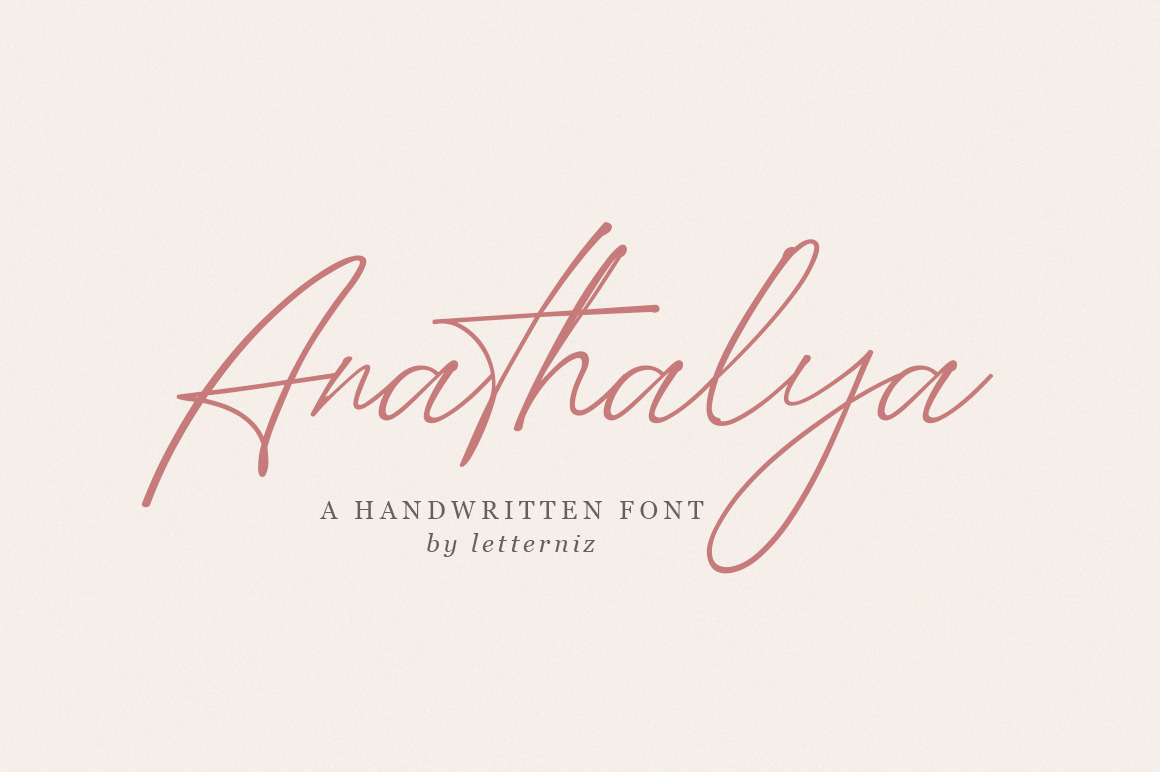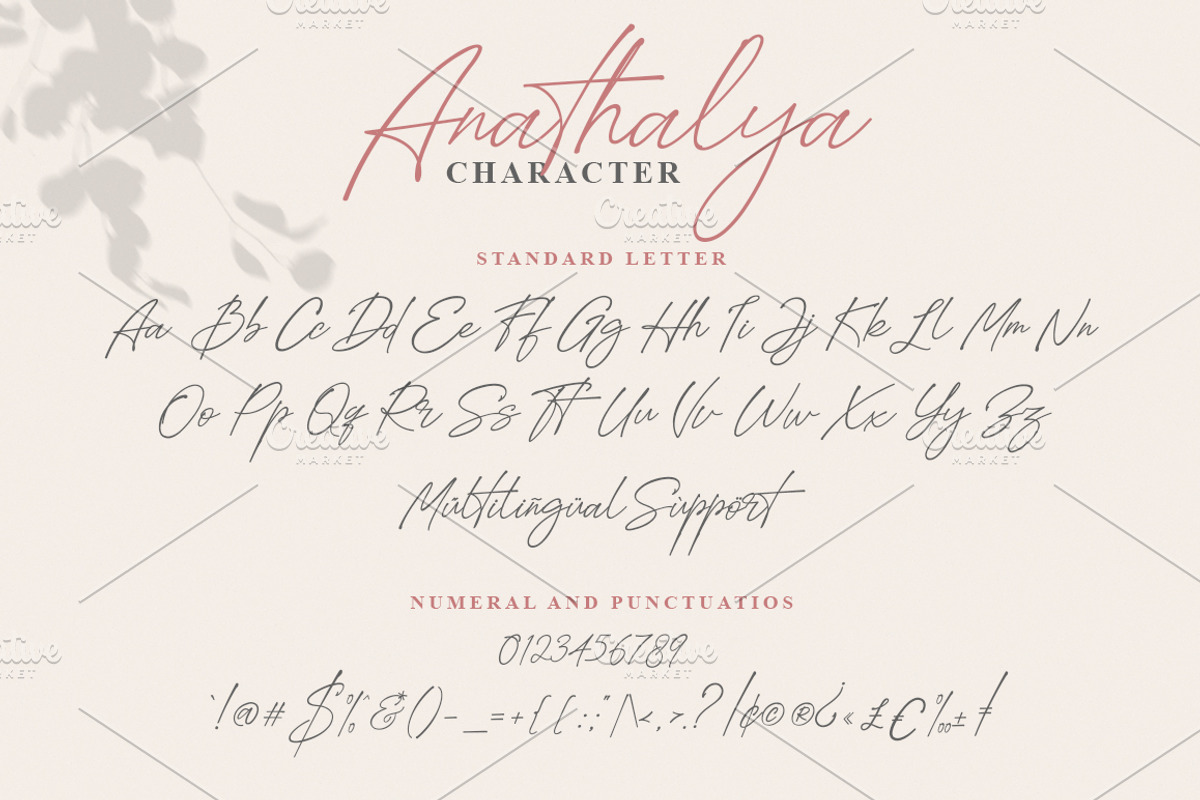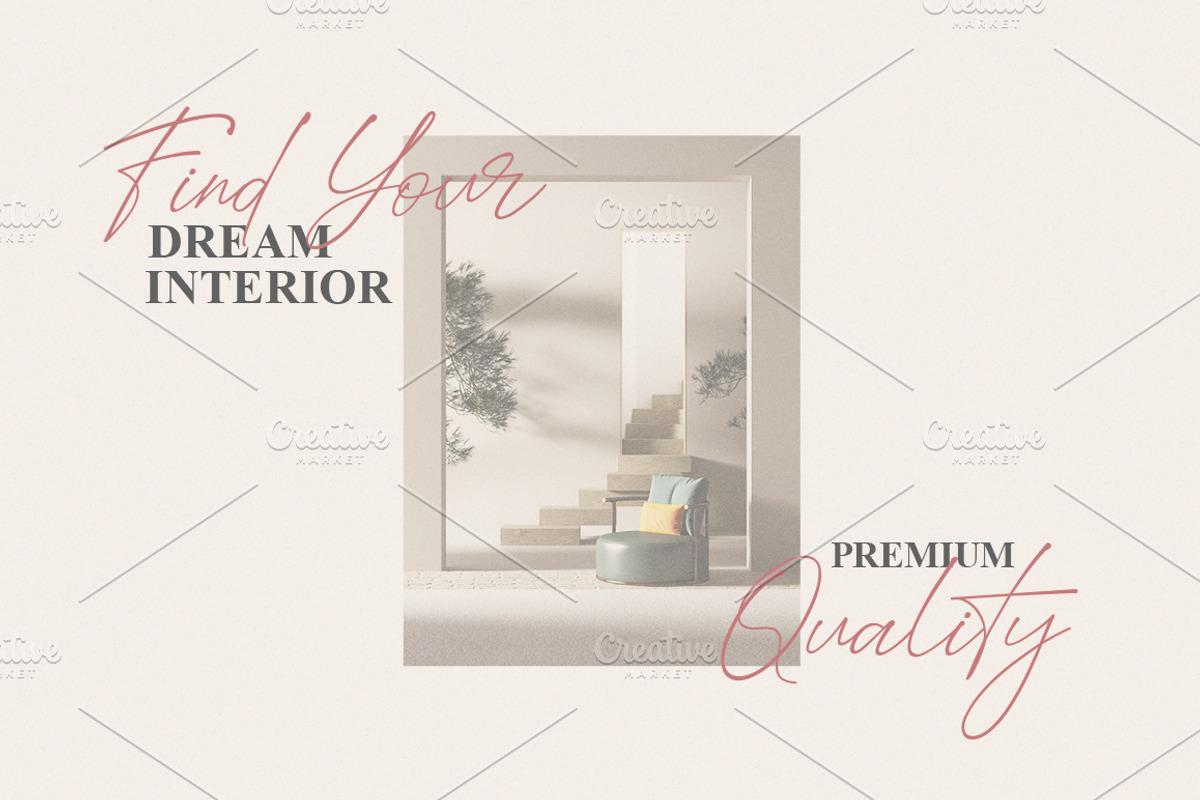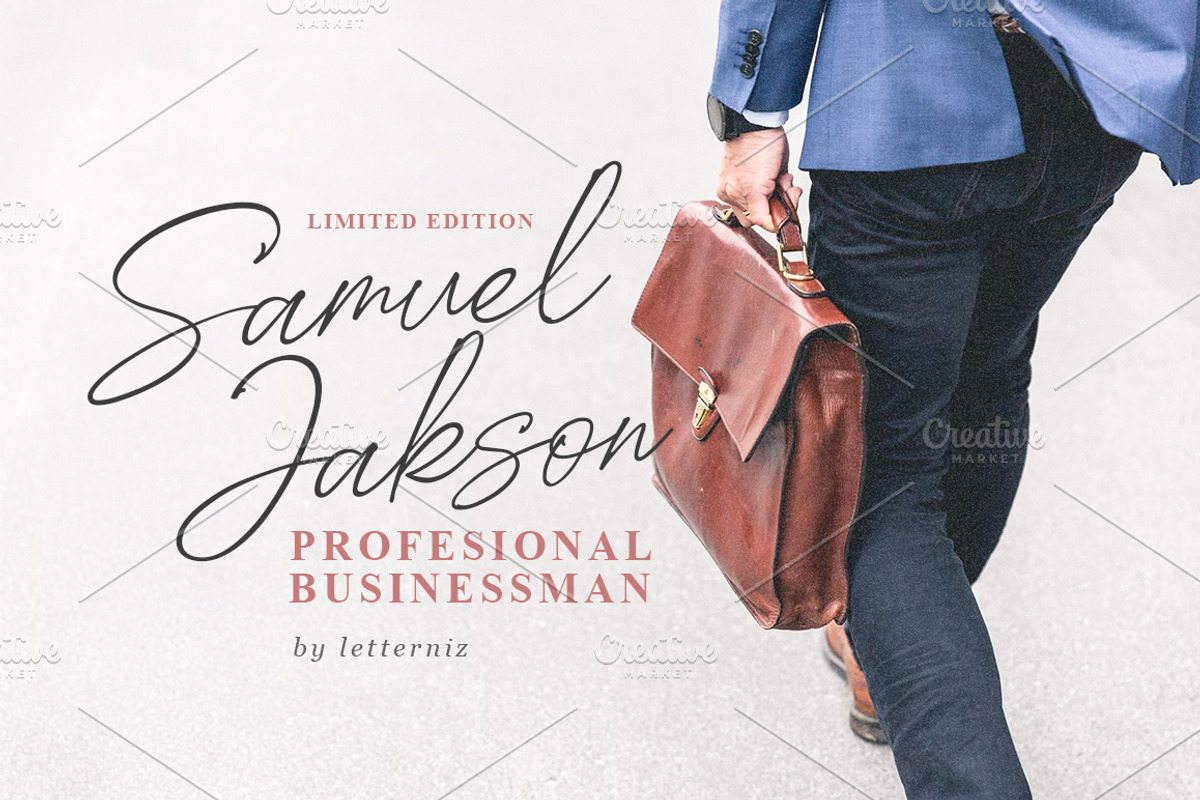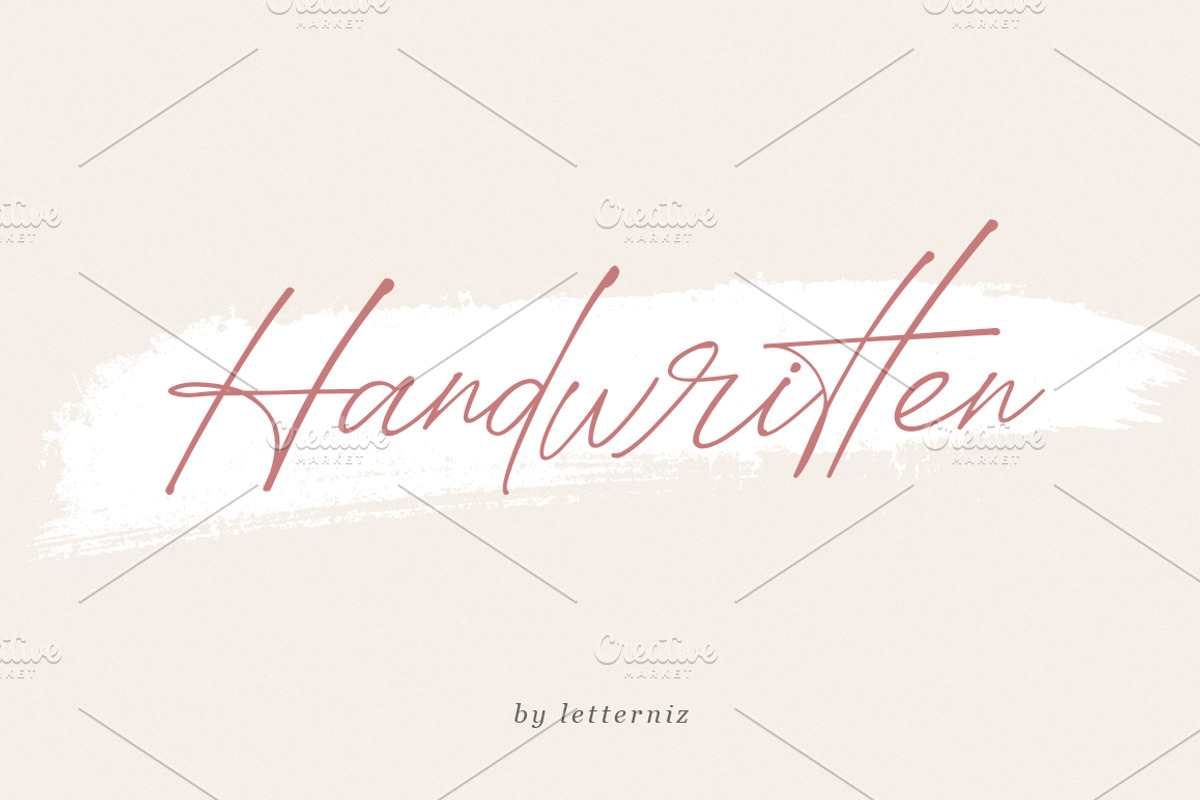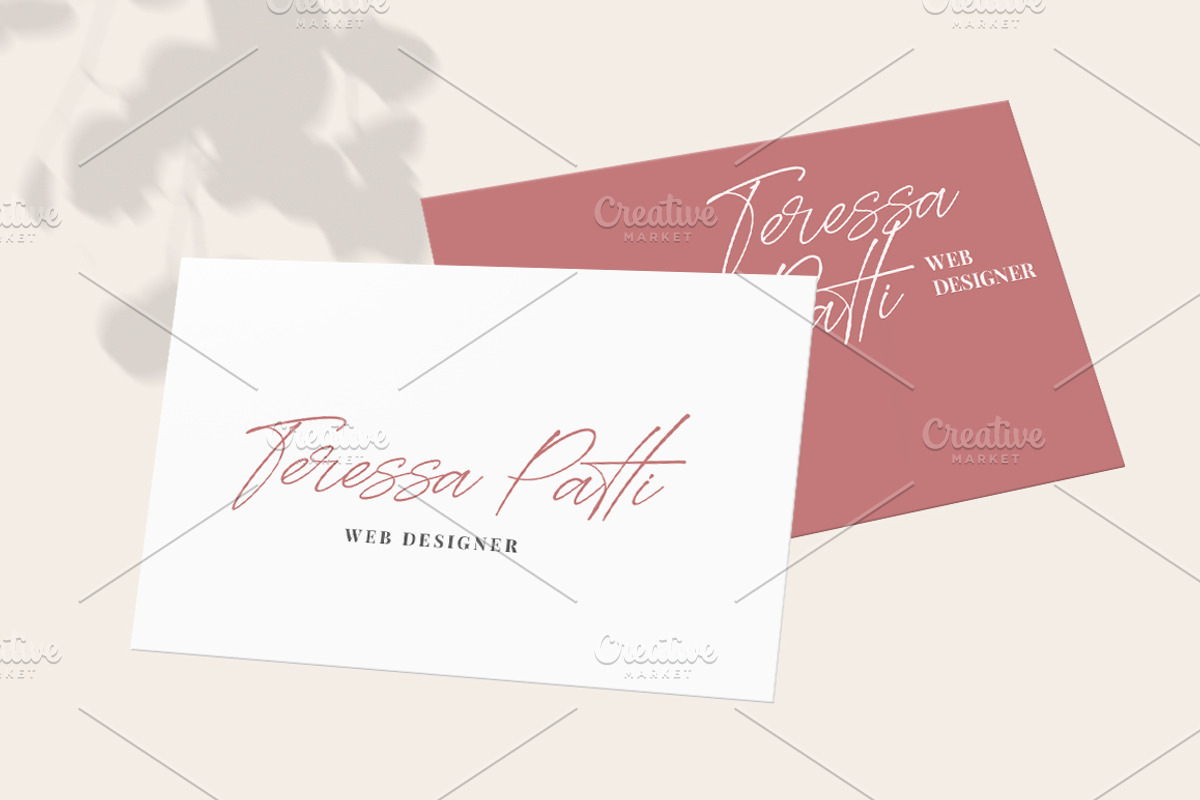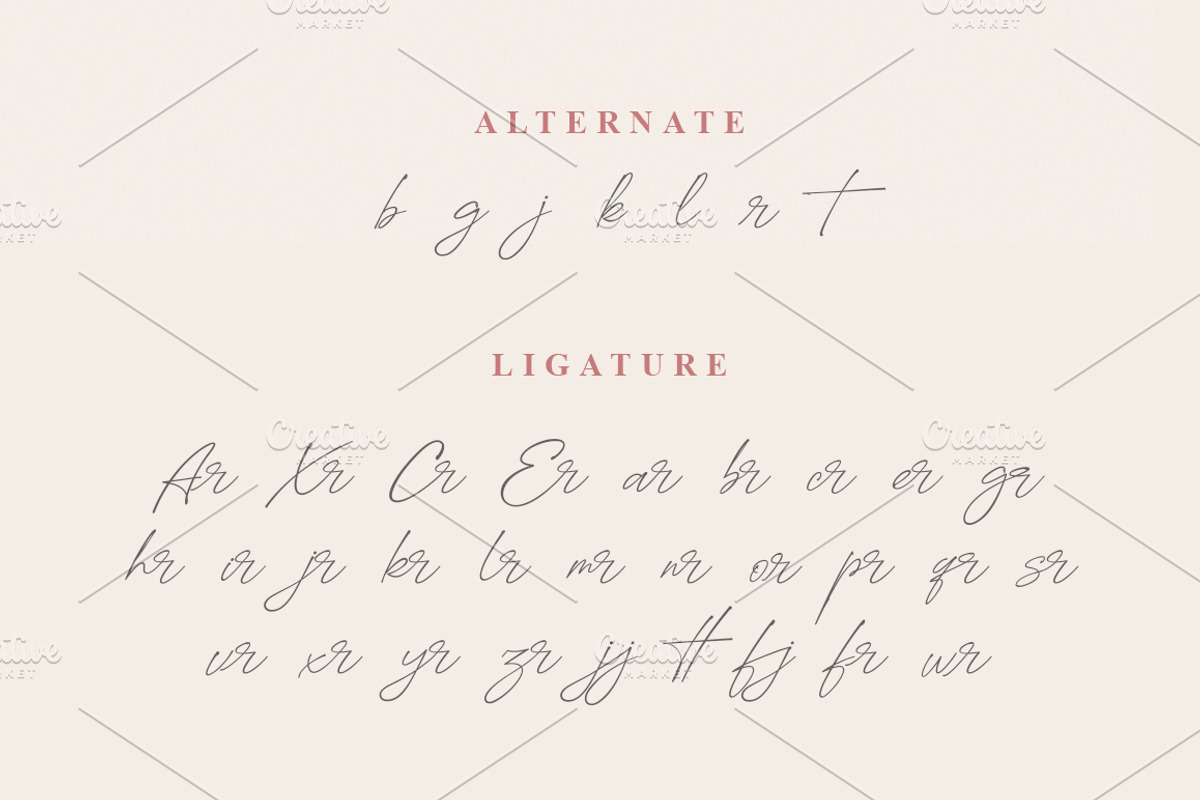
Anathalya Script Font
Anathalya Script is a handwritten script font of a fashionable sophisticated signature-style script with its own unique curves and an elegant inky flow.
Anathalya Script is perfect on wedding invitations, thank you cards, quotes, greeting cards, logos, business cards, branding projects, logo, wedding designs, social media posts, advertisements, product packaging, product designs, label, photography, watermark, invitation, stationery and any other design that requires a handwritten touch